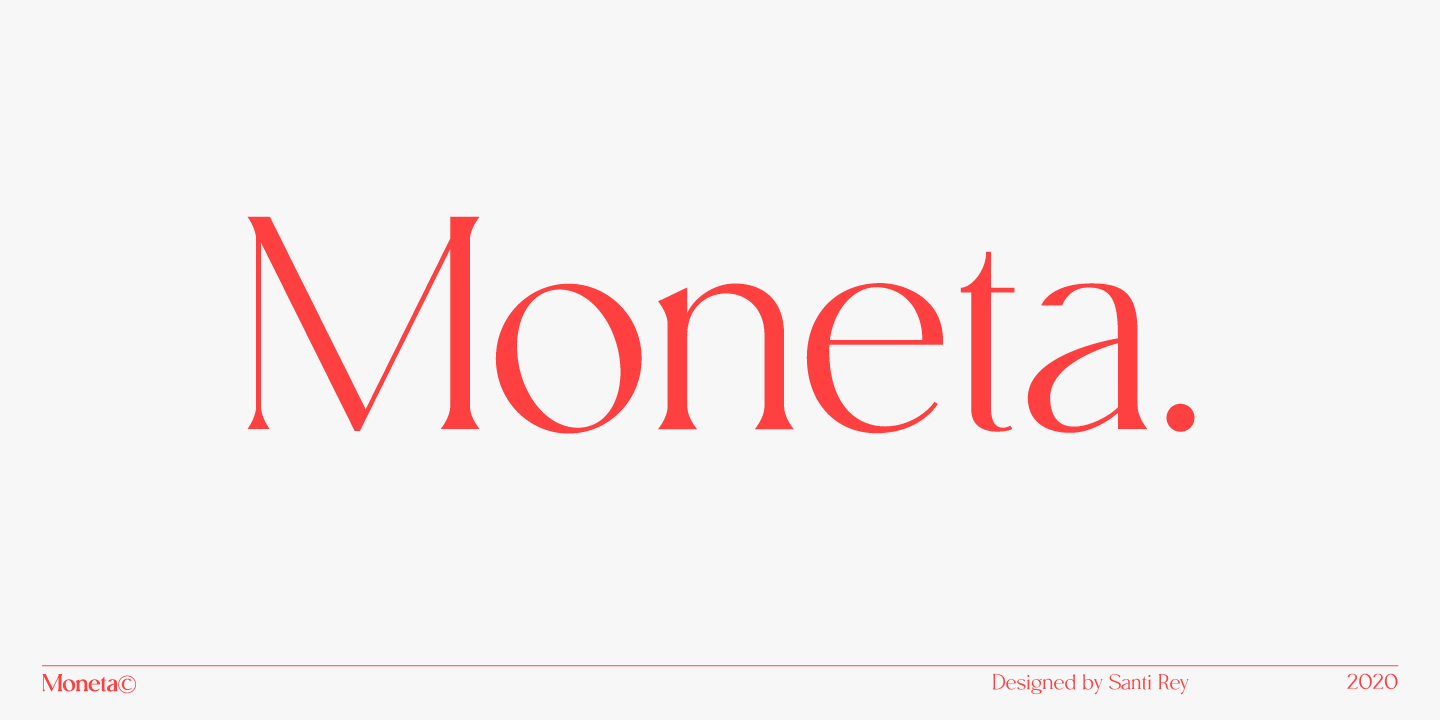
Moneta Font excels in financial design applications including banking institution branding, investment firm materials, cryptocurrency platforms, economic publications, financial technology interfaces, insurance company presentations, accounting firm identities, wealth management brochures, financial advisory signage, and premium fintech applications. This authoritative typeface brings credibility and trust to monetary communications.
What makes Moneta Font truly exciting is its perfect balance of traditional financial gravitas with modern technological precision that inspires confidence and reliability. The font features strong, well-proportioned letterforms with subtle serif details and excellent readability that convey stability and professional expertise. Its trustworthy character and sophisticated presence make it ideal for financial institutions seeking to establish authority, security, and contemporary relevance in competitive banking and investment markets.
The Moneta Font family encompasses comprehensive weights including Light, Regular, Medium, Bold, and Black variations with corresponding Italic styles. These extensive options provide designers with complete typographic flexibility to create hierarchical financial communications that maintain professional credibility while ensuring optimal readability across digital platforms and printed materials.
Whether you're developing financial services branding, creating investment presentations, or designing fintech campaigns, Moneta Font Free Download delivers the monetary authority and professional sophistication that financial projects require. Its exceptional trustworthiness and elegant presence make it invaluable for designers working with banks, investment firms, and financial technology companies requiring authoritative typography that builds client confidence, conveys expertise, and reflects the secure, reliable nature of modern financial services.